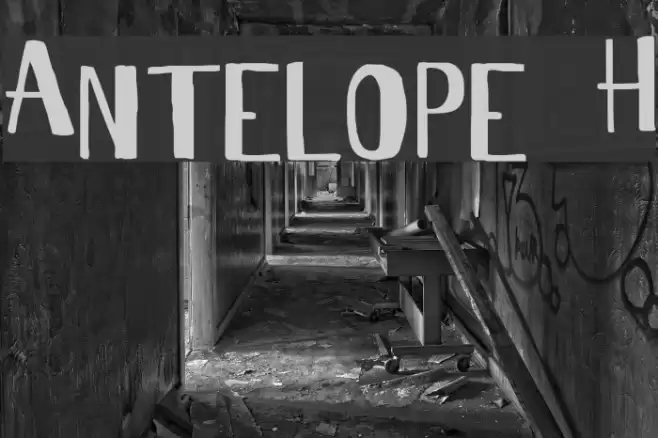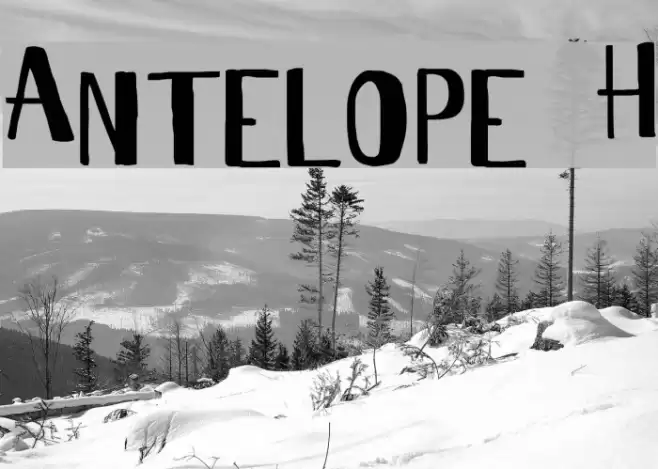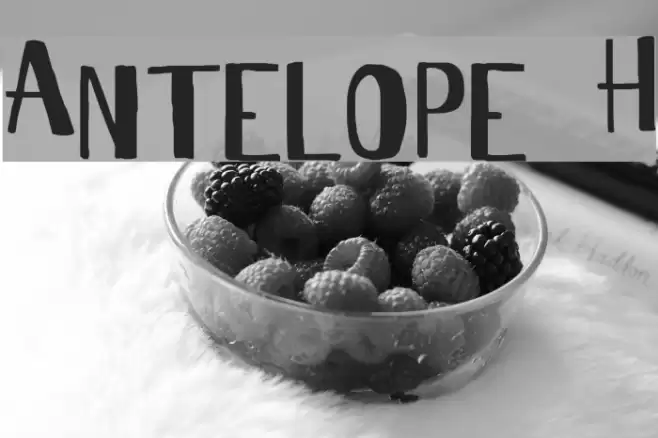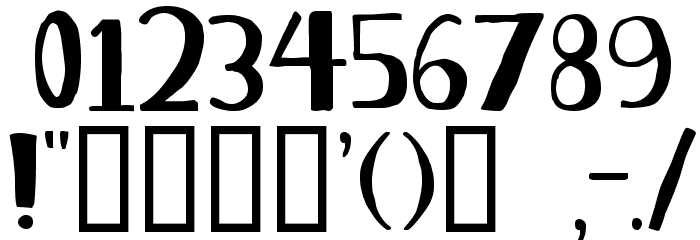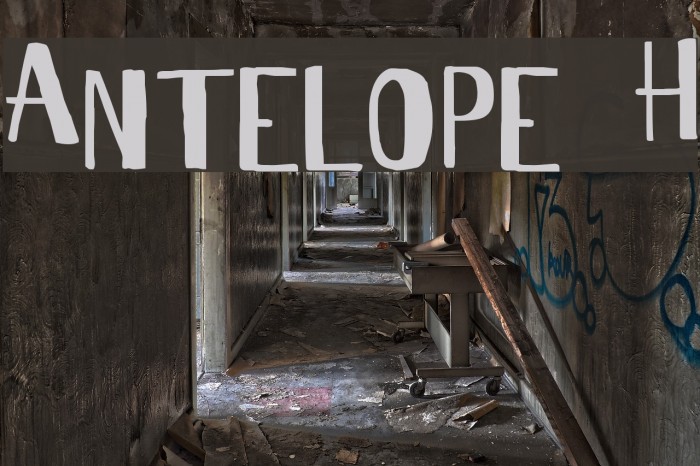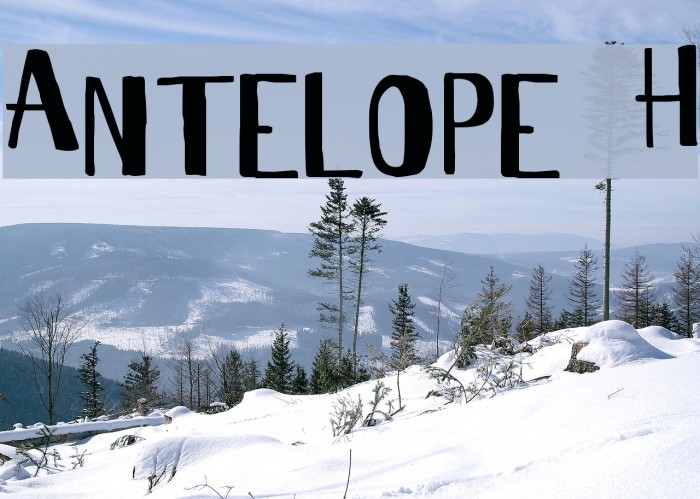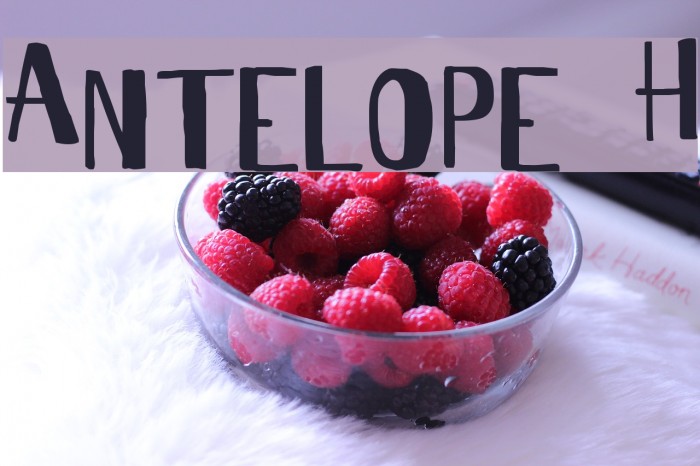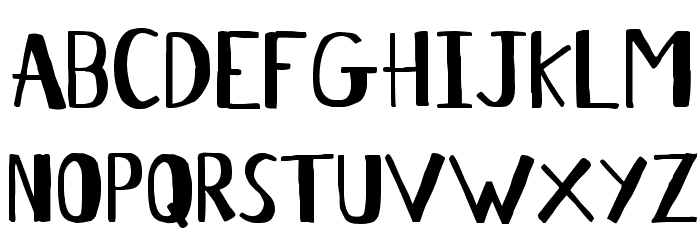
Antelope H Font
Antelope H Description
This font features a bold and playful design with a hand-drawn aesthetic. The characters are slightly irregular, giving them a whimsical and artistic feel. The uppercase letters are tall and narrow, while the lowercase letters maintain a consistent style with a touch of quirkiness. Numbers are bold and easily distinguishable, and the special characters add a unique flair. The overall appearance is both modern and approachable, making it suitable for creative and informal projects.
A bold, playful font with a hand-drawn, artistic style from Decorative fonts.
- Proposed Projects: Ideal for children's books, creative posters, playful branding, and artistic invitations.
- Overall Style: Modern, Artistic